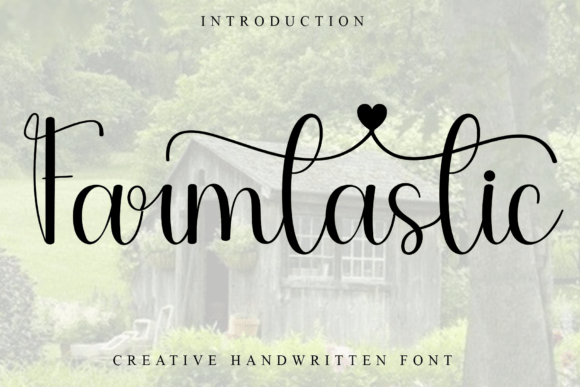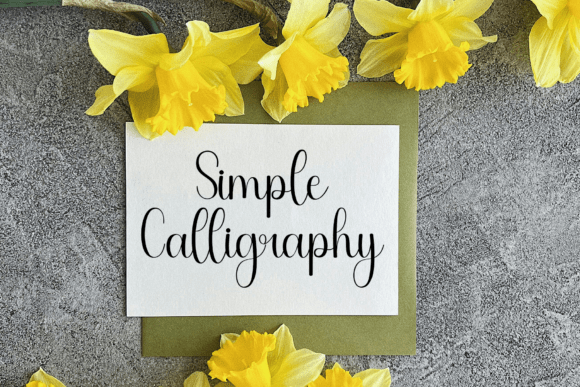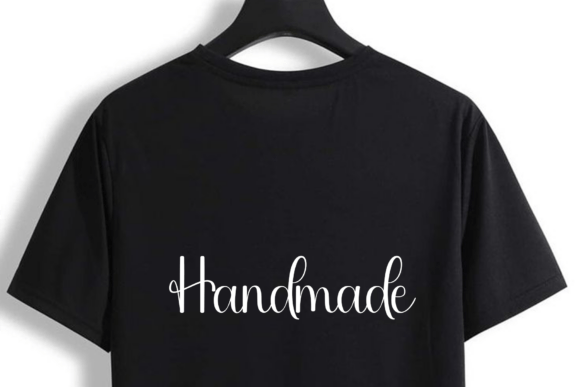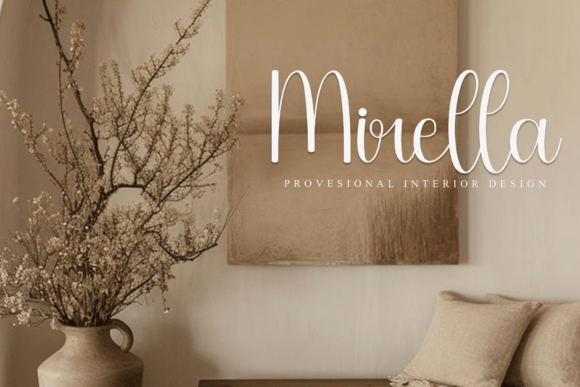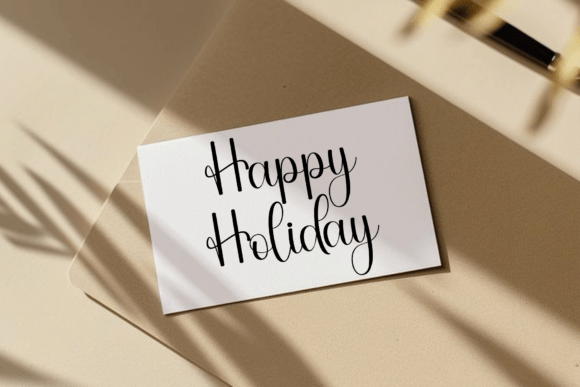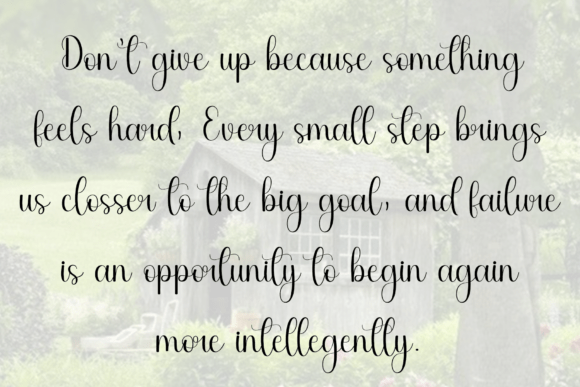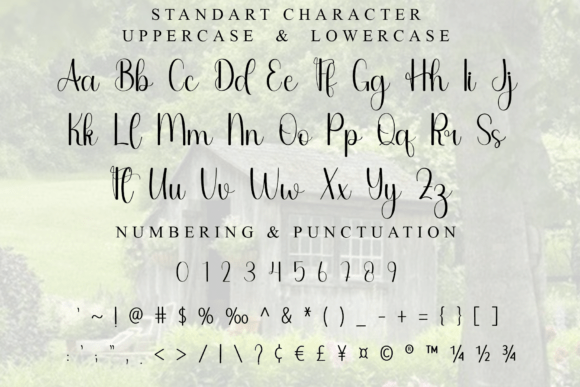
Get Ready to Deck the Halls with Style
It’s that time of the year when creativity knows no bounds, and our designs need a dash of magic. You’re rummaging through your font collection, searching for the perfect typeface to capture the essence of the holiday season. And then, it hits you – a font so festive, so merry, and so full of whimsy that you can’t help but smile.
Behold, the Farmtastic Font! A delightful, PUA-encoded typeface that brings a touch of enchantment to your designs. With its decorative elements and playful flair, it’s perfect for greeting cards, gift tags, and holiday-themed projects. As a designer, you’ll love how easily it adds a cheerful and nostalgic ambiance to your words, making it a valuable addition to your toolkit.
Farmtastic Font Key Features
- Font Family: Farmtastic Font is a custom-designed font family with 6 styles (Regular, Italic, Bold, Bold Italic, Outline, and Shadow) to cater to various design needs.
- Unique Characteristics: Features a rustic, country-inspired design with hand-drawn elements and subtle texture, perfect for farm-themed, outdoor, or rustic-inspired projects.
Farmtastic Font Review
I recently had the chance to work with the Farmtastic Font, and I have to say it’s a unique and playful addition to any design project. Here’s my honest take on what works well and what could be improved.
- The font’s farm-themed characters are adorable and add a fun touch to any design.
- The font is highly customizable, with a range of sizes, colors, and styles available.
- It’s perfect for projects that need a rustic or countryside feel, such as agricultural or outdoor-themed designs.
- The font’s design can be overwhelming if used extensively, and may require careful balancing with other design elements.
- It may not be suitable for projects that require a more formal or professional tone.
- The font’s characters can be a bit pixelated at smaller sizes, which may affect readability.
The Farmtastic Font is a fun and quirky addition to any design project. While it has some limitations, its unique characters and high customizability make it a great choice for the right type of project. With careful use, it can add a lot of personality and charm to your designs.
Use Farmtastic Font for rustic or country-themed designs, such as farm branding, outdoor decor, or food packaging. You can also use it for creative titles, headings, or labels to add a touch of whimsy to your designs.